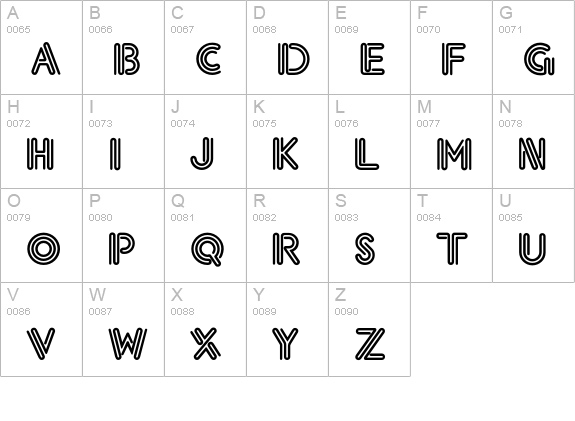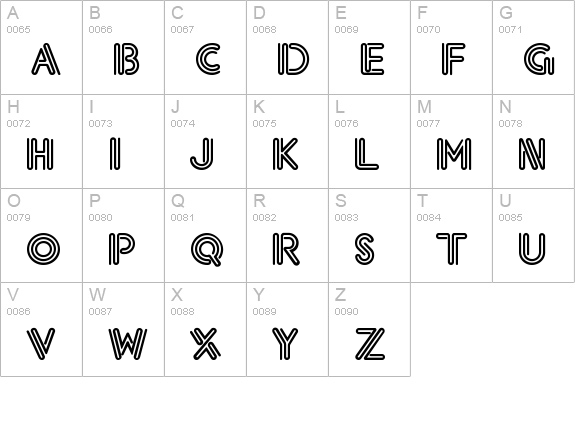
ElektrikFont Font Details
Introducing ElektrikFont, a dynamic and modern typeface that exudes energy and creativity. With its sleek lines and electrifying design, ElektrikFont is perfect for making a bold statement in your projects. This versatile font is suitable for a wide range of design applications, from branding to advertising to social media graphics. The best part? ElektrikFont is completely free to download at FontsMarket.com! Now you can add a touch of excitement to your designs without breaking the bank. Don't miss out on this opportunity to elevate your projects with the electrifying style of ElektrikFont. Download it today and unleash your creativity!